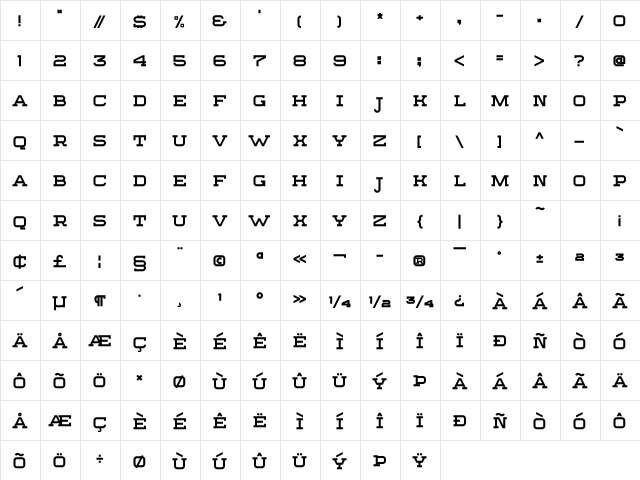
Sebastien Slab Round Regular
Design Context for Sebastien Slab Round Typeface
Sebastien Slab Round combines the readability of serif typography with the visual weight of a slab construction, resulting in a typeface that feels both authoritative and approachable.
Works well in editorial design, news publishing, impactful branding, and poster typography.
Pro Tip: Try Sebastien Slab Round set tight in headlines for a classic editorial feel. Its slab serifs create strong horizontal rhythm that anchors a page layout.